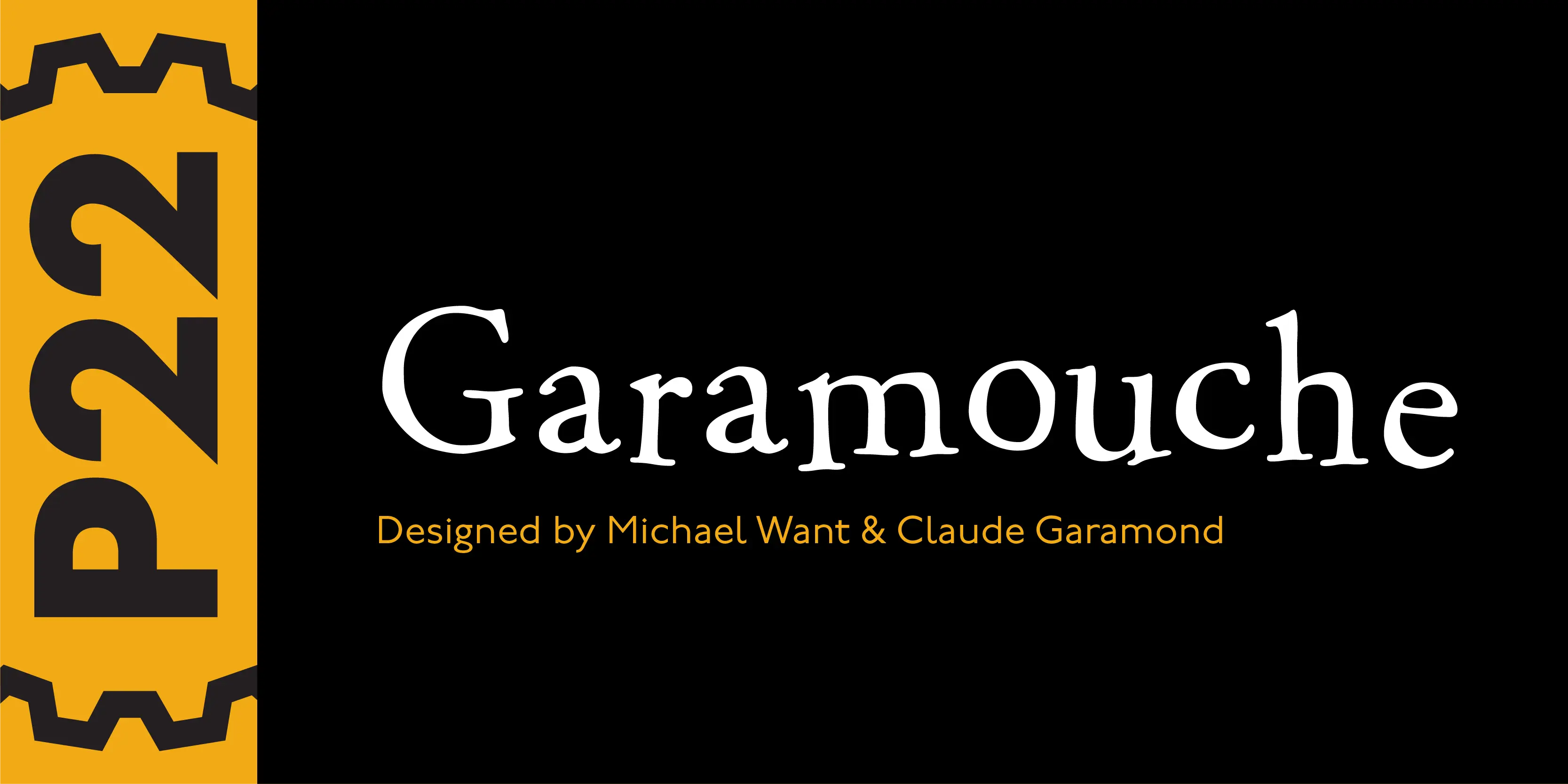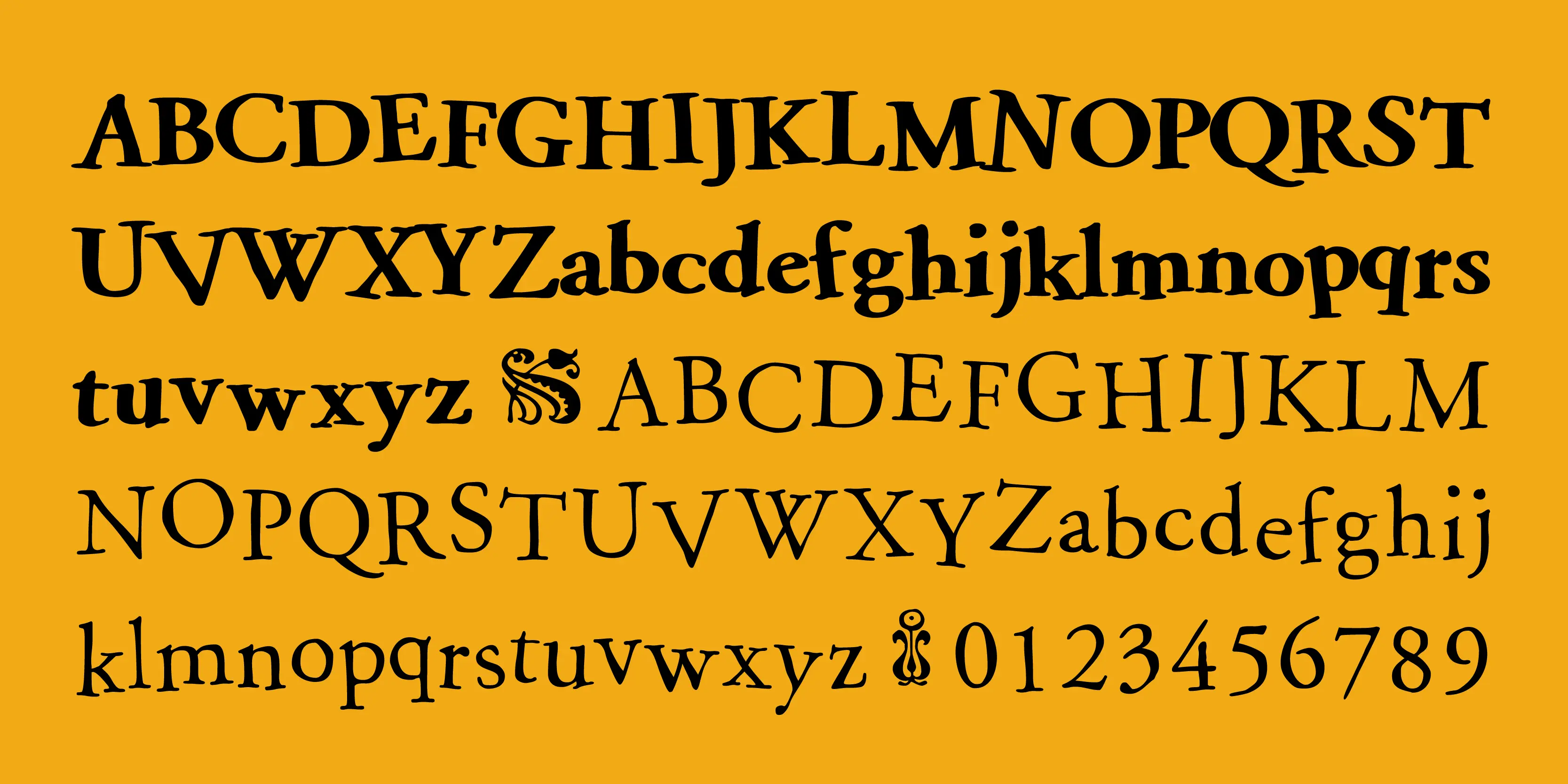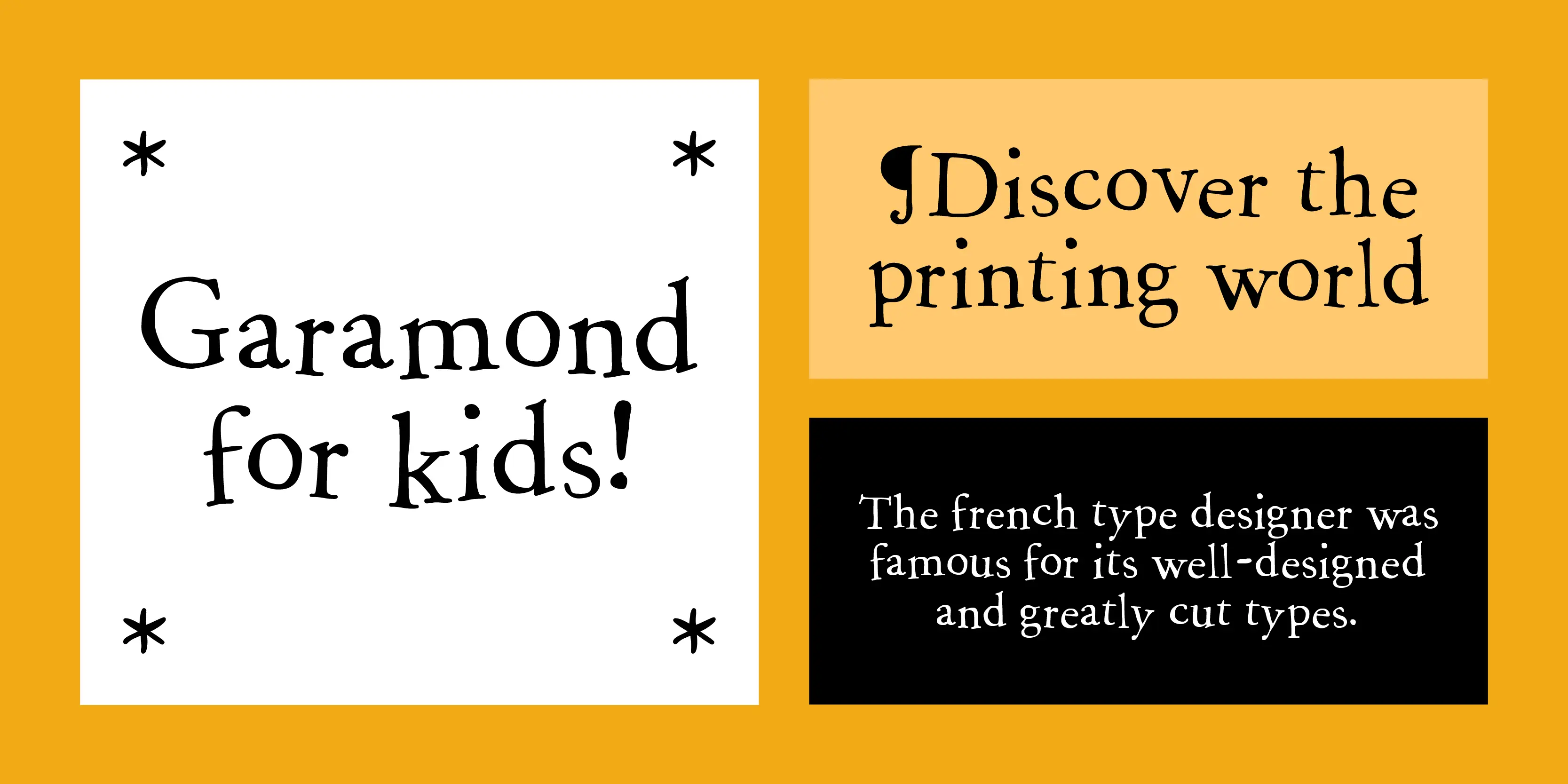
Garamouche Font Family
Garamouche Regular
Garamouche Bold
Garamouche Ornaments
Garamouche
Think of Garamouche as Garamond’s drunken cousin. This font replicates a long lost document ravaged by time and the elements (with a little sloppy printing for good measure). Unlike the fake bolding option found in software programs, Garamouche Bold is a variant with more appropriate thick and thin features. The “dancing along the baseline” that has made Garamouche a favorite, is also a feature in Garamouche Bold, but the letters align and tilt in on their own terms. Using the two Garamouche fonts together can produce much more expressive results than just hitting “bold.” P22 Garamouche Ornaments is a set of 72 ornamental embellishments designed to complement the Garamouche fonts but can be used with almost any layout that calls for historical decoration.
- Common Ligatures
- Stylistic Alternates